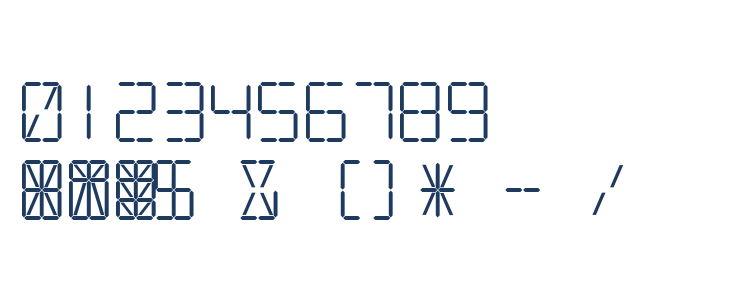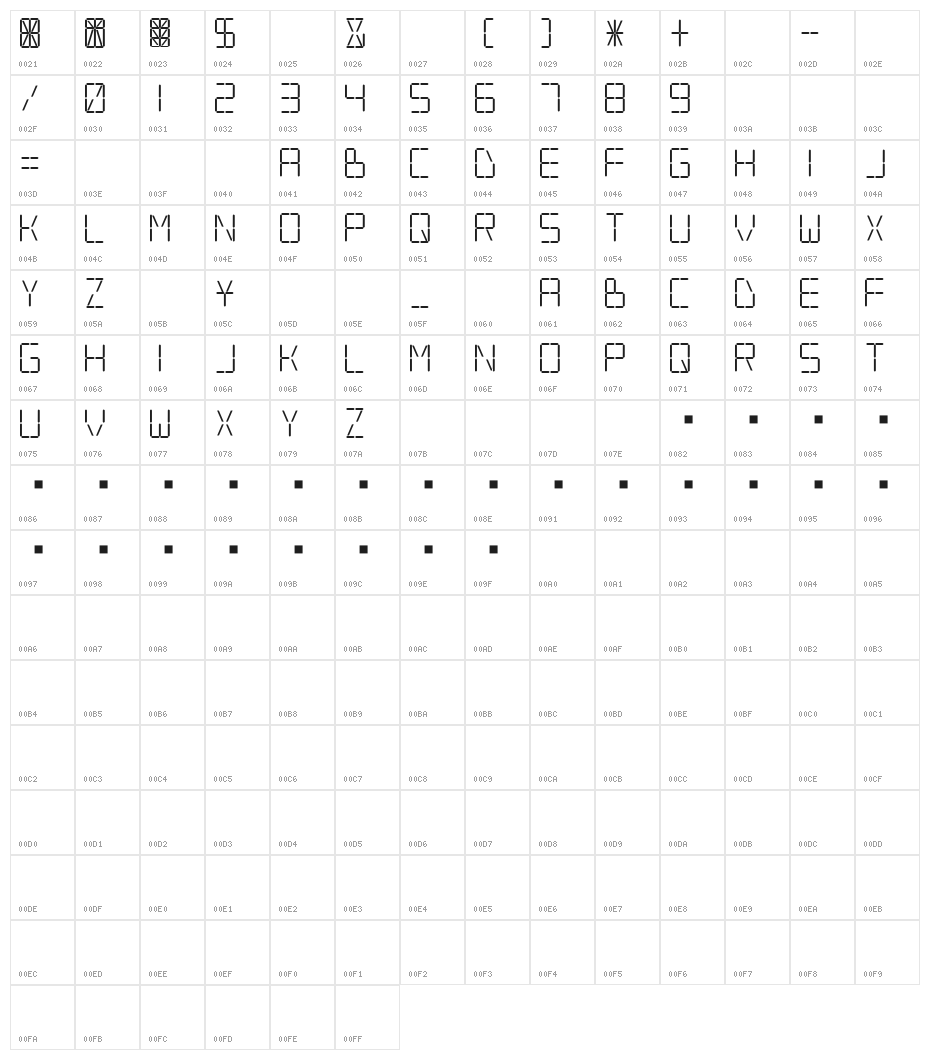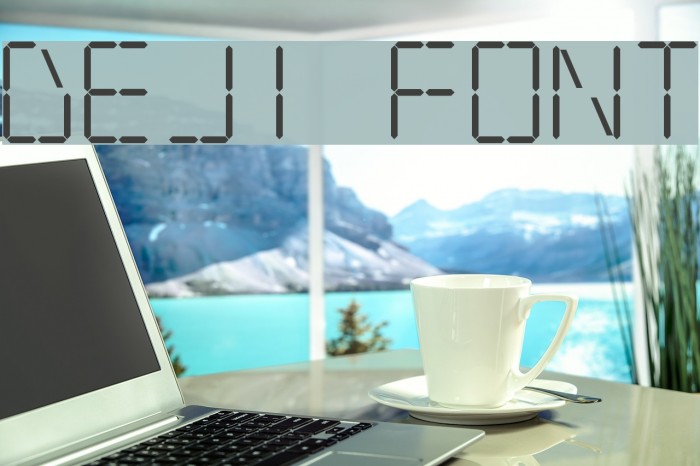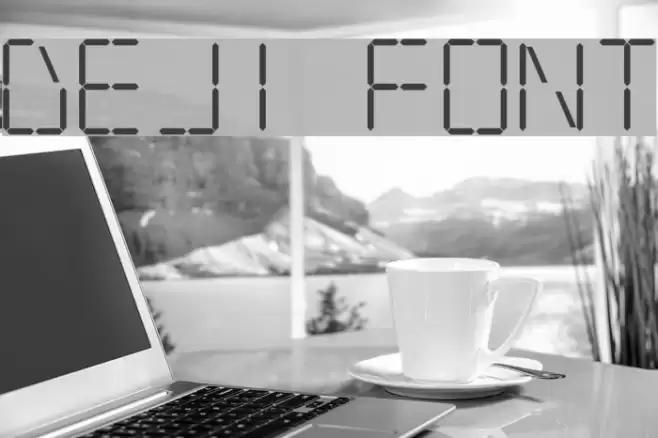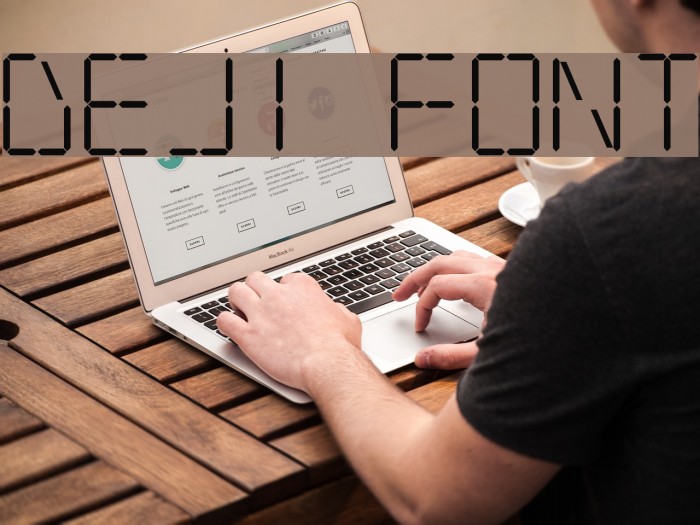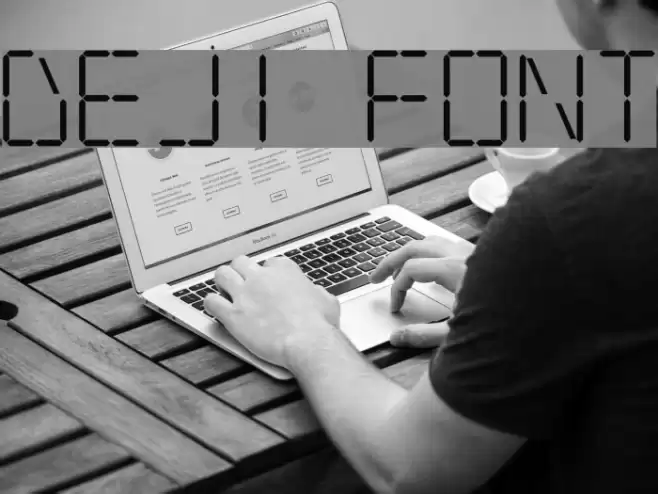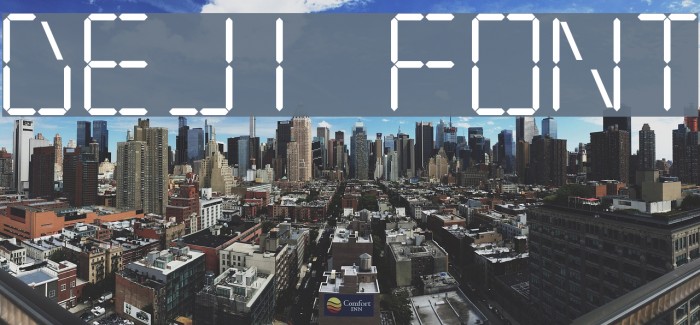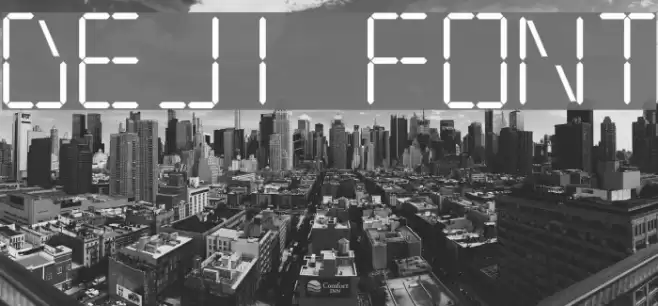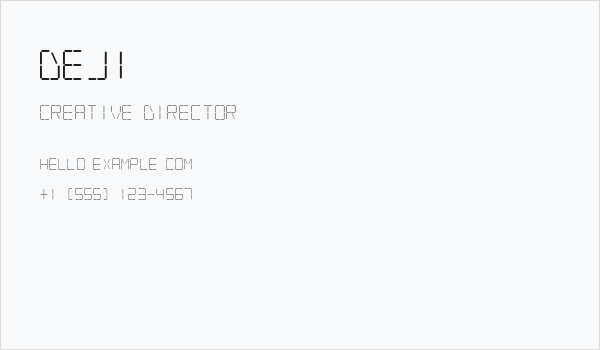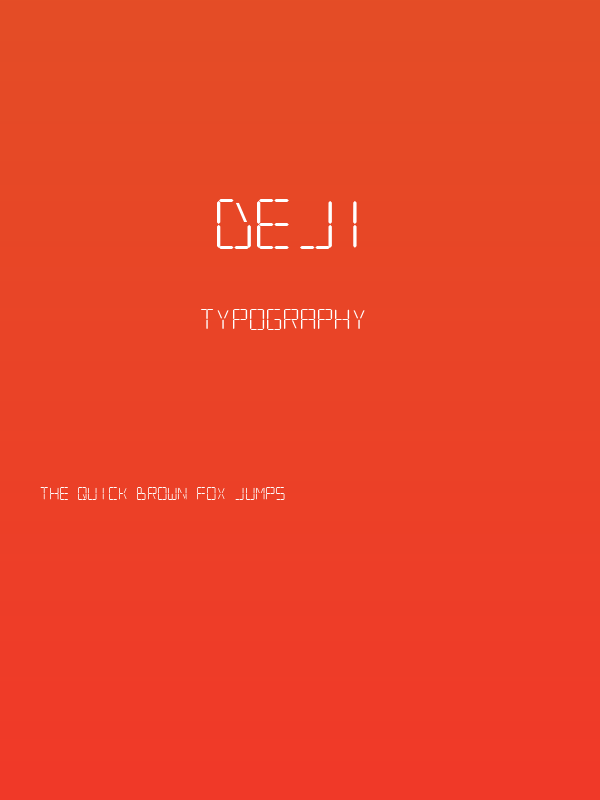
DeJi Font
DeJi Description
This font features a distinctive, futuristic design reminiscent of digital displays. Each character is constructed from a series of segmented lines, creating a geometric and technical appearance. The uppercase and lowercase letters share a similar structure, emphasizing uniformity and precision. The numerals and special characters maintain the same segmented style, ensuring consistency across all glyphs. This font's unique aesthetic makes it ideal for projects that require a modern, digital look, such as tech-related branding or digital interfaces.
| Use Case | Logos, Headlines, Digital displays |
| Proposed Projects | Ideal for tech branding, digital interfaces, futuristic designs, and electronic-themed projects. |